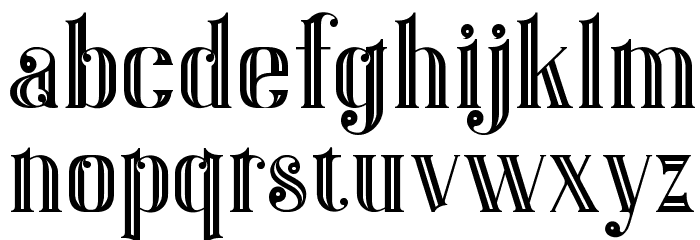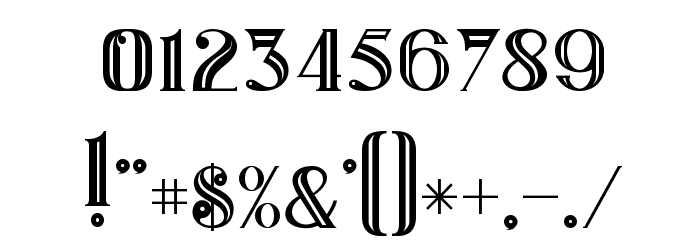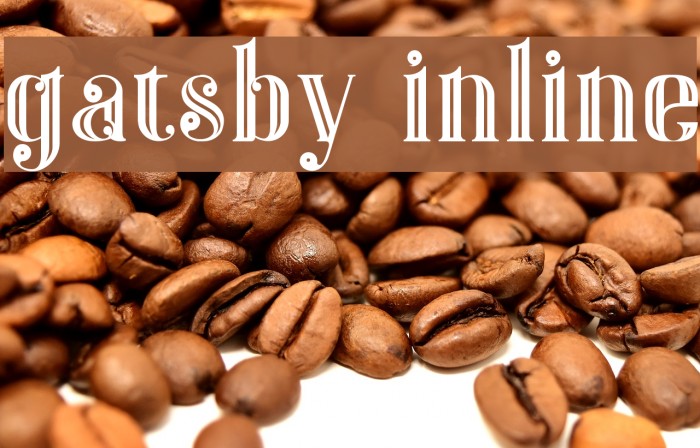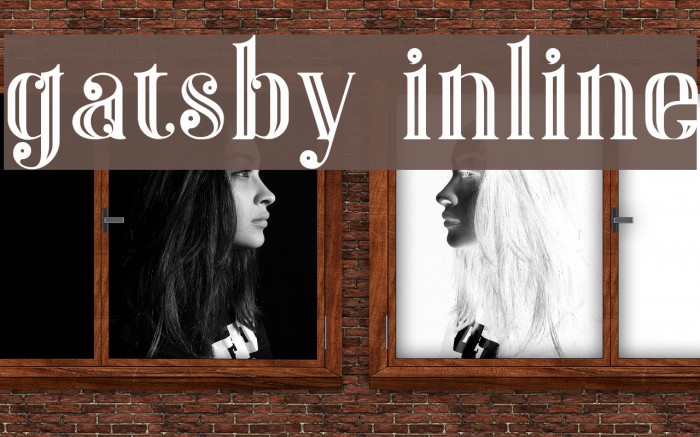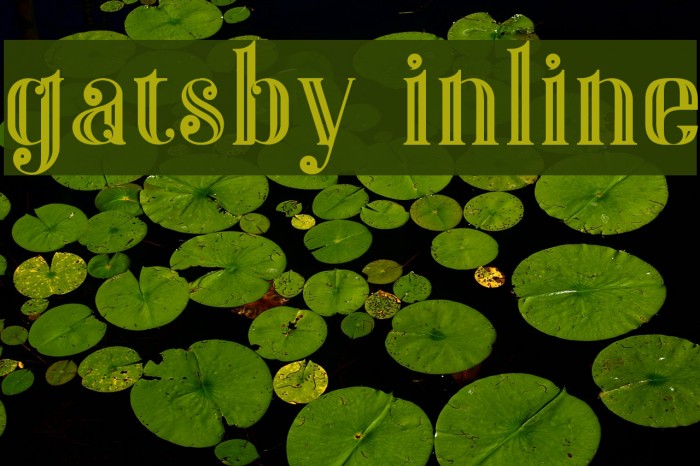
Gatsby Inline Font
This font features a distinctive inline style with elegant serifs and a vintage flair. The uppercase and lowercase letters maintain a consistent height, with the inline detail adding a sophisticated touch. The numerals are bold and clear, matching the overall aesthetic. Special characters are well-integrated, maintaining the decorative theme. The font's design is reminiscent of the Art Deco era, with its geometric shapes and ornamental lines, making it ideal for projects that require a touch of classic elegance.
A vintage serif font with elegant inline detailing and Art Deco influences.
- Proposed Projects: Ideal for branding, invitations, posters, and any design project that seeks a vintage or classic look.
- Overall Style: Vintage